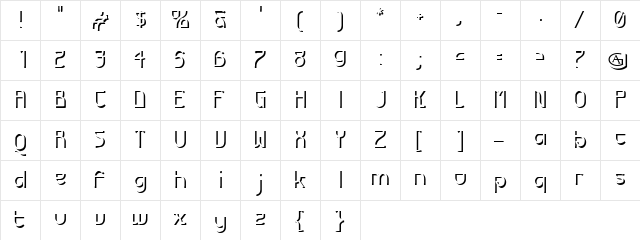
Futurex Embossed Regular
Design Context for Futurex Embossed Typeface
Futurex Embossed has a distinctly futuristic character, with geometric precision and clean angles that feel at home in technology, gaming, and sci-fi contexts.
Pro Tip: Use Futurex Embossed in combination with a neutral sans for body text. Let it define the brand voice in headlines while keeping reading comfortable elsewhere.